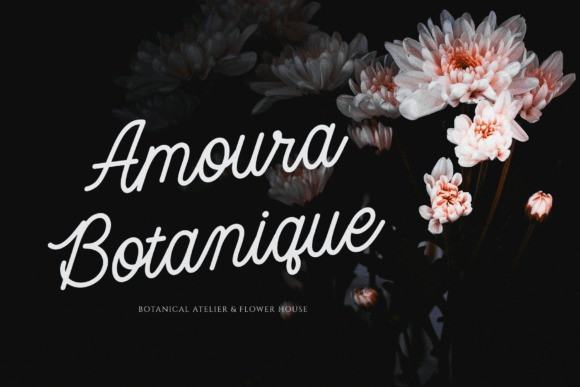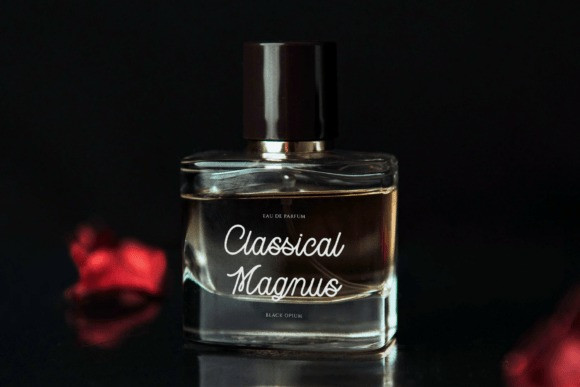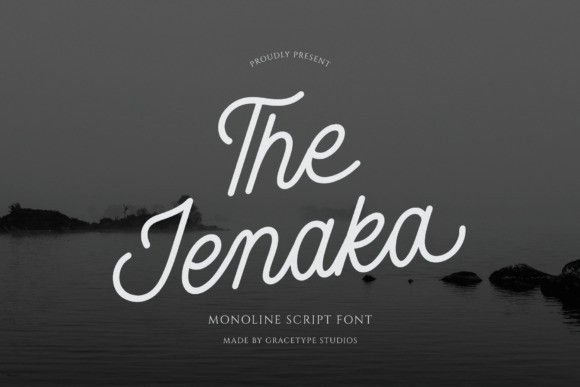
Jenaka Font
Jenaka Font a refined monoline script font. This typeface features a beautifully fluid anatomy built with clean, consistent line weights and an effortless, elegant slant. Its unique character is defined by expressive capital letters that transition into sweeping loops and a rhythmic, dancing baseline that mimics classic fountain pen calligraphy. The Jenaka is an extraordinary choice for luxury lifestyle branding, sophisticated wedding stationery, boutique product packaging, and intimate editorial headers. It delivers a sense of professional grace and polished artisanal beauty to your visual assets, ensuring your text feels personal, intentional, and classic.